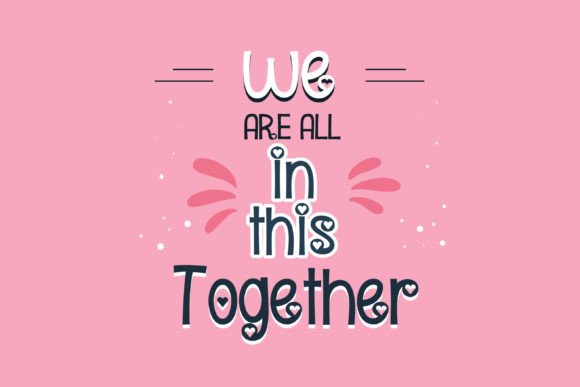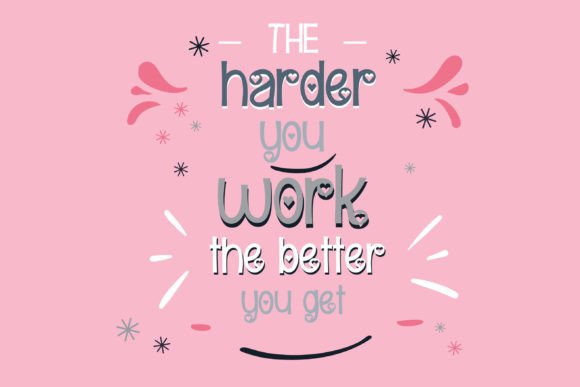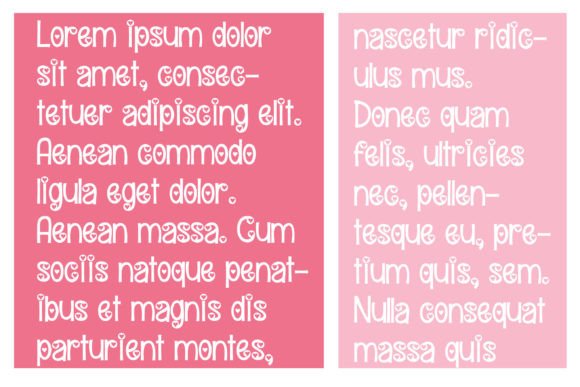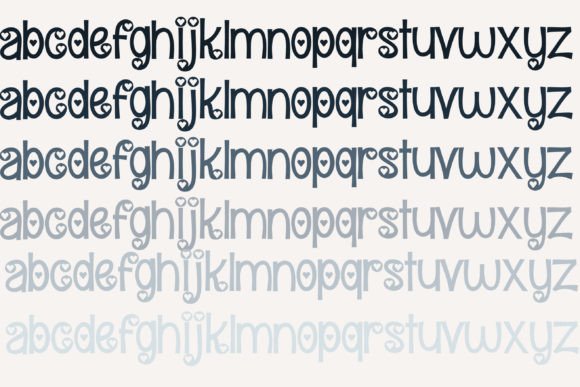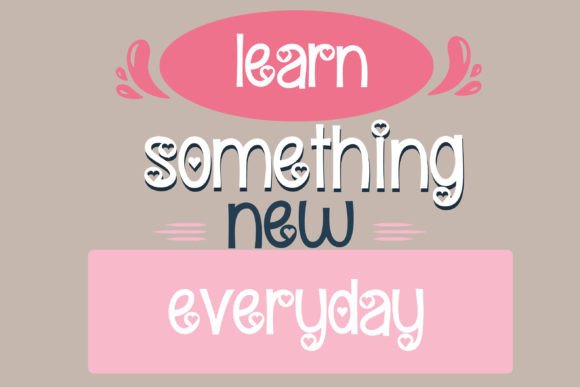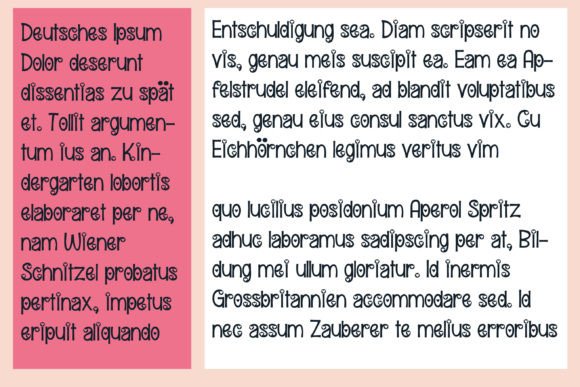
Introduction to Lollipop Love Font
This sweet and quirky display font will bring a smile to everyone’s face.
Key Features of Lollipop Love Font
Why Choose Lollipop Love Font?
Lollipop Love Font offers exceptional quality and versatility, making it a valuable addition to your design toolkit. Whether you’re creating for personal projects or commercial use, Lollipop Love Font delivers professional results.